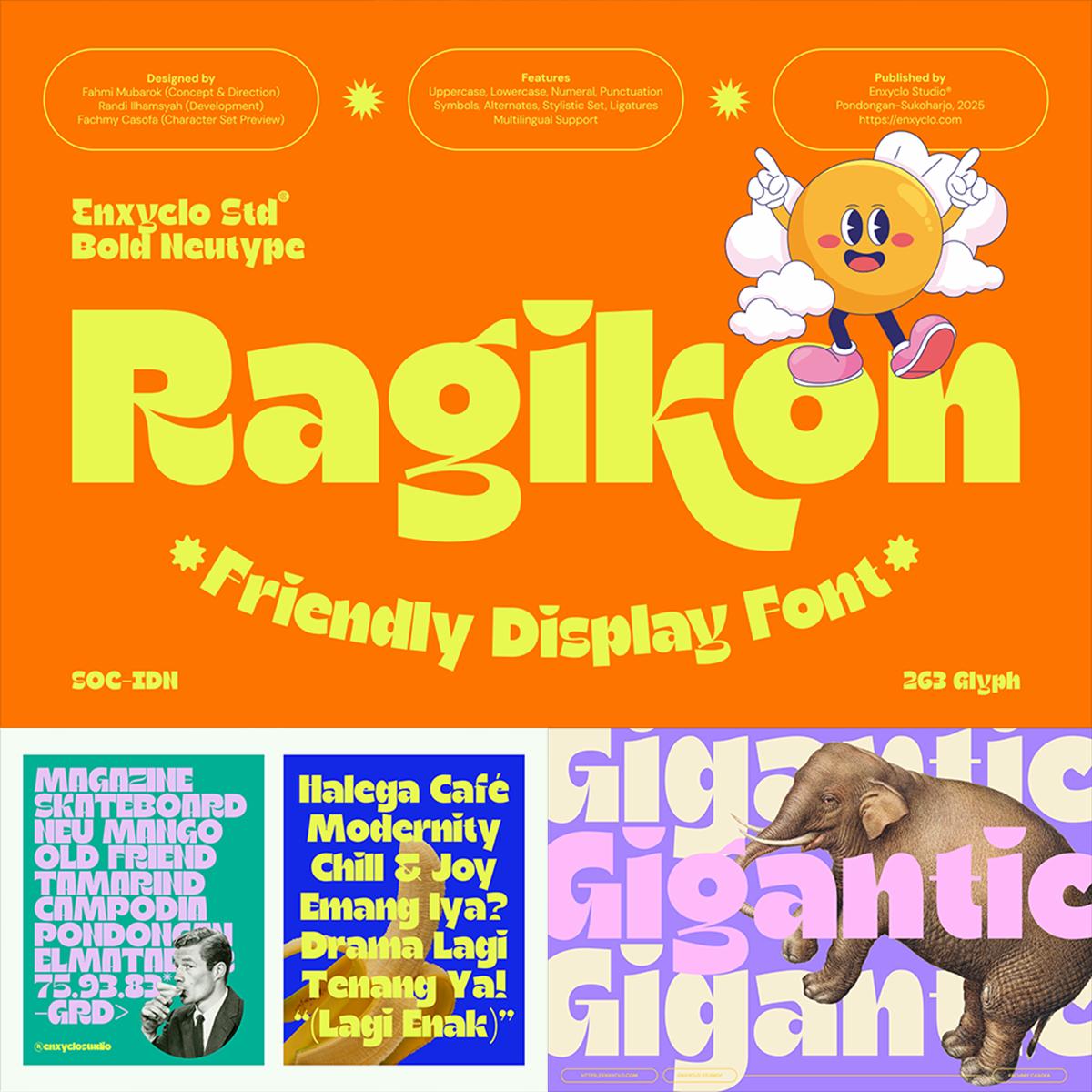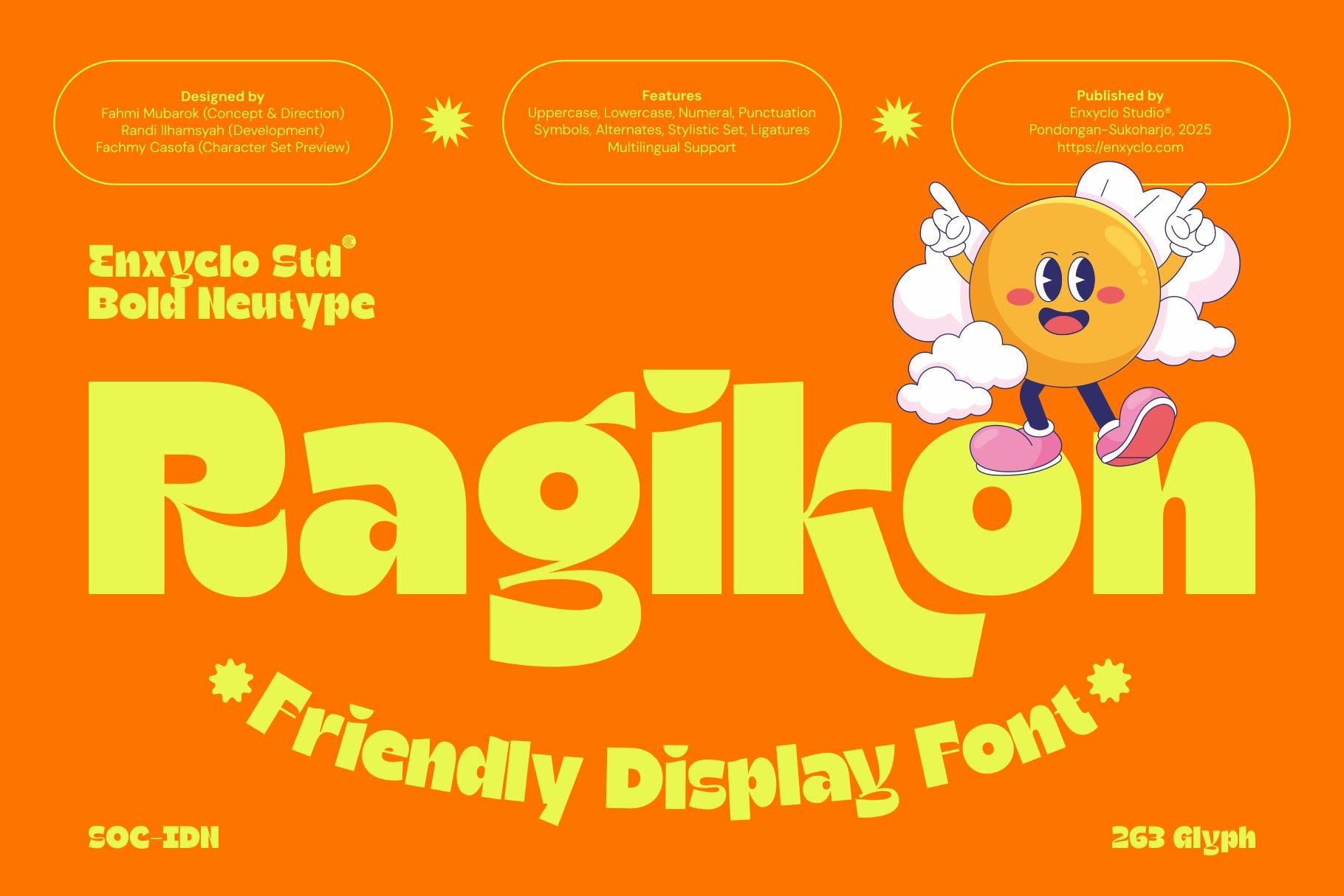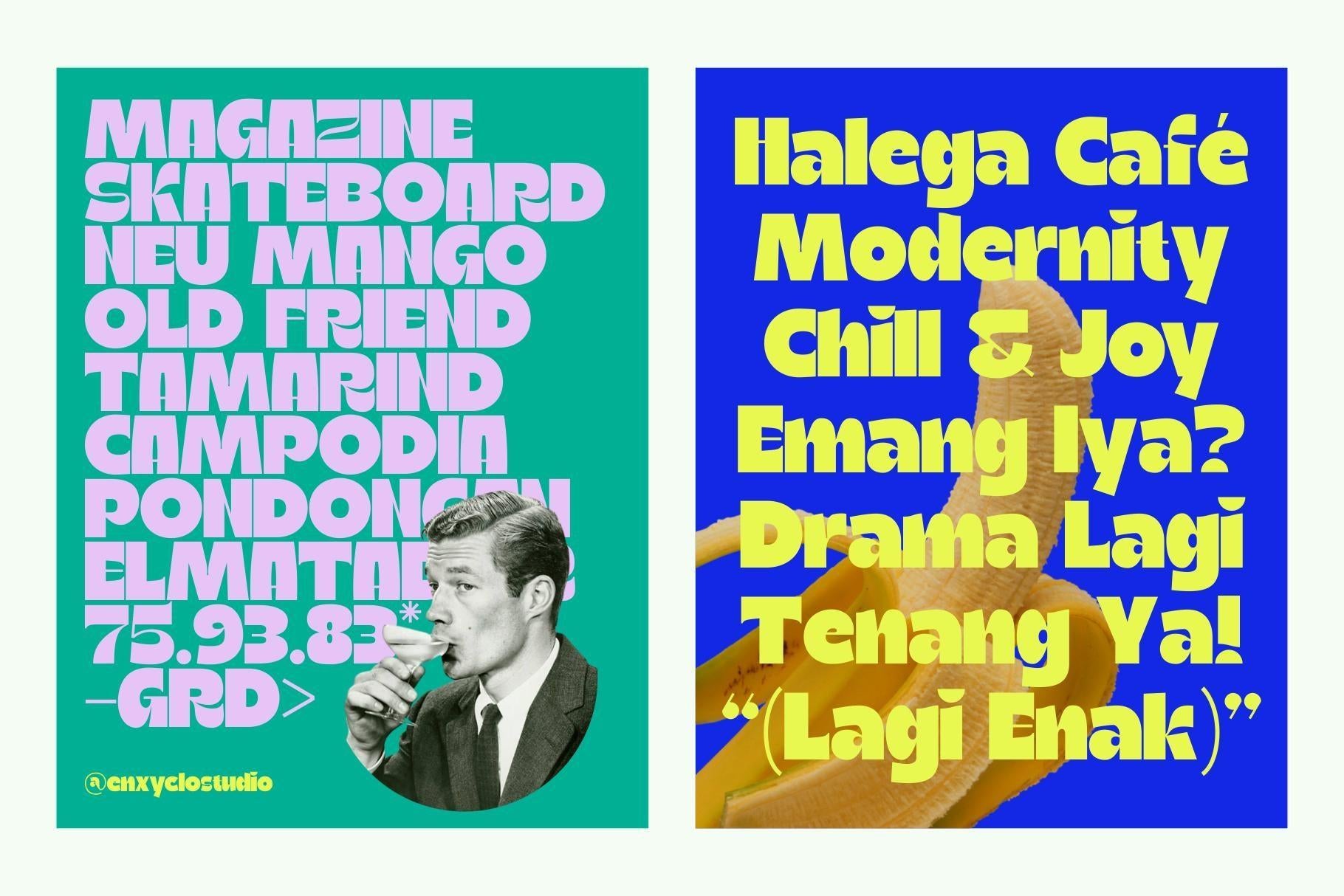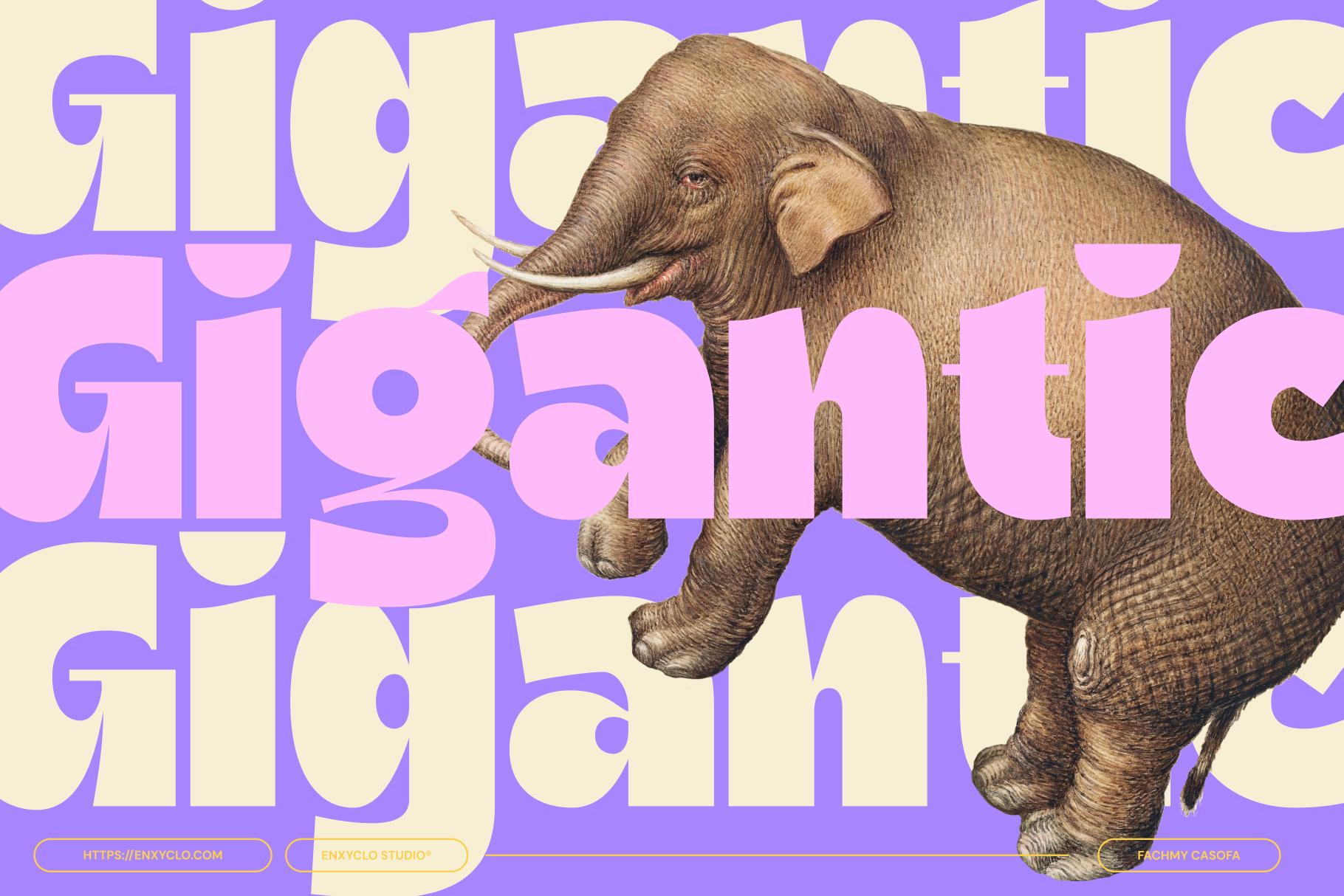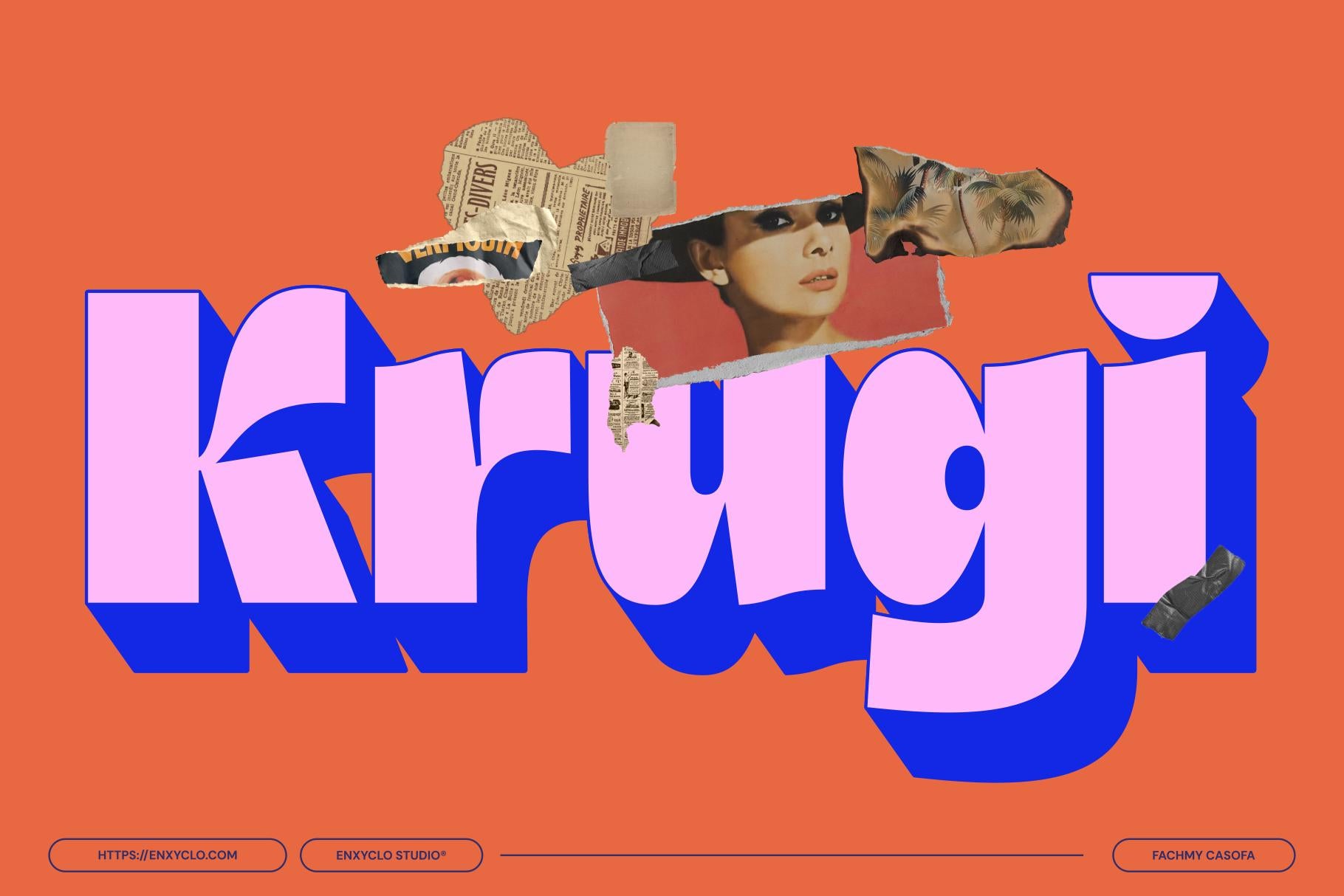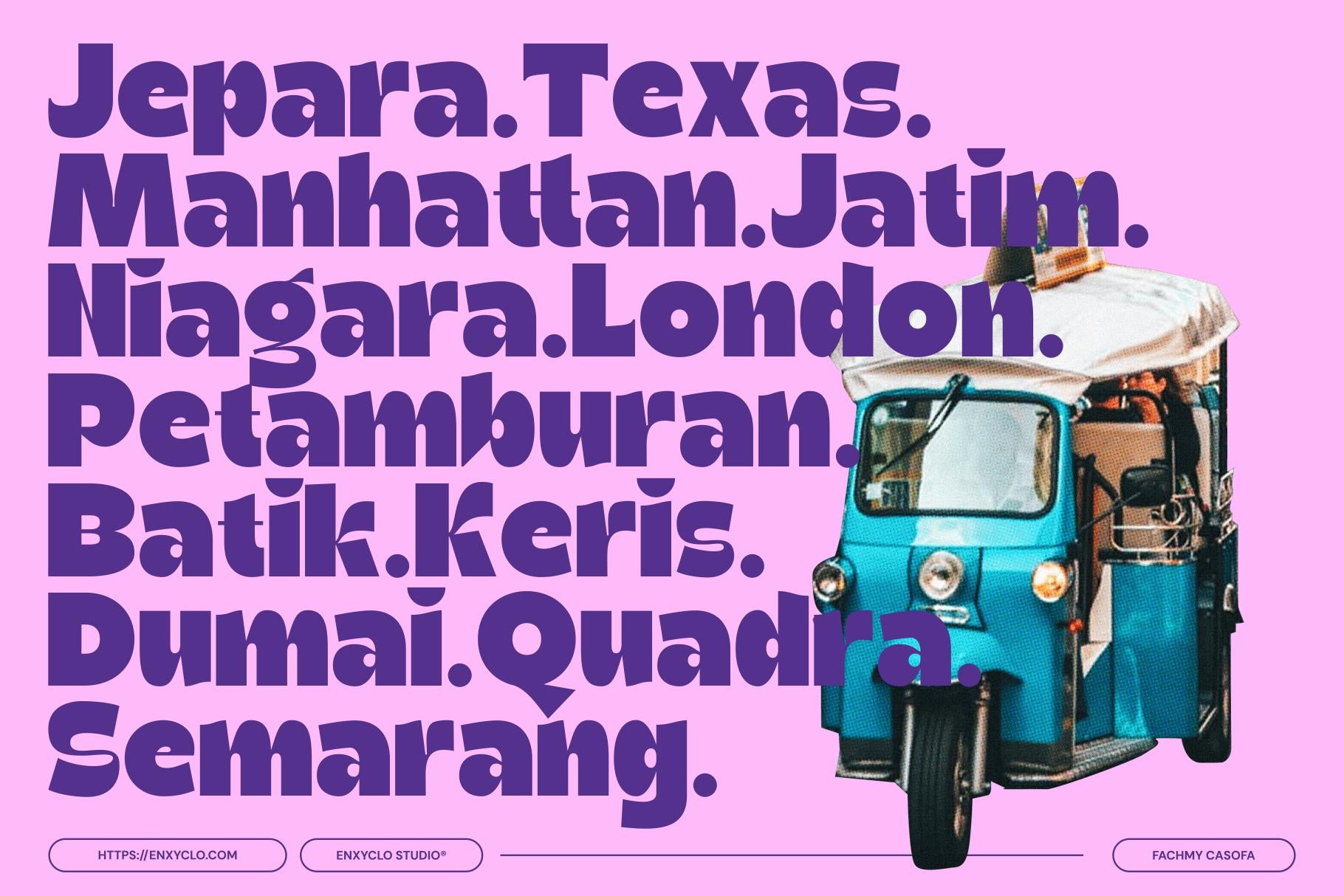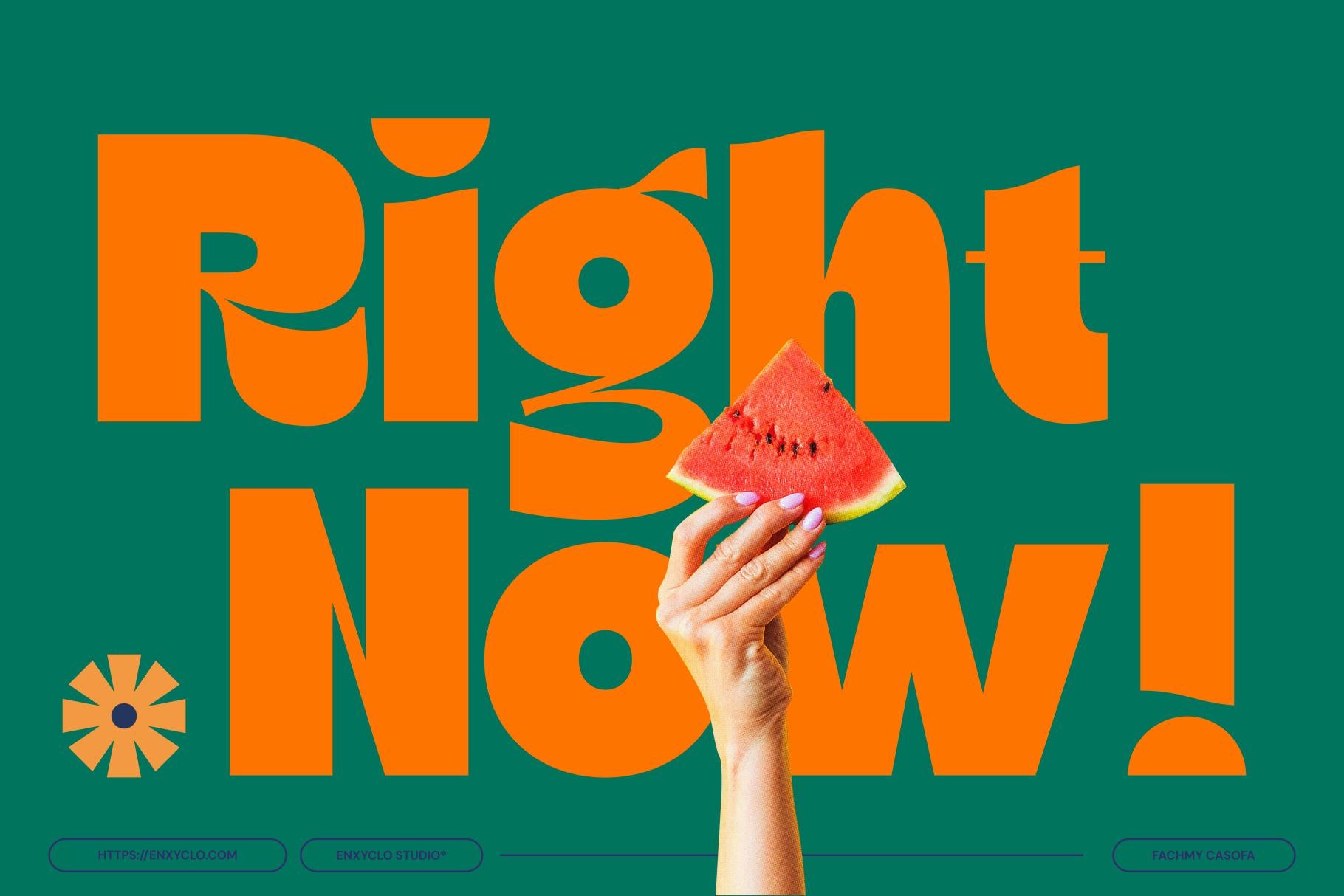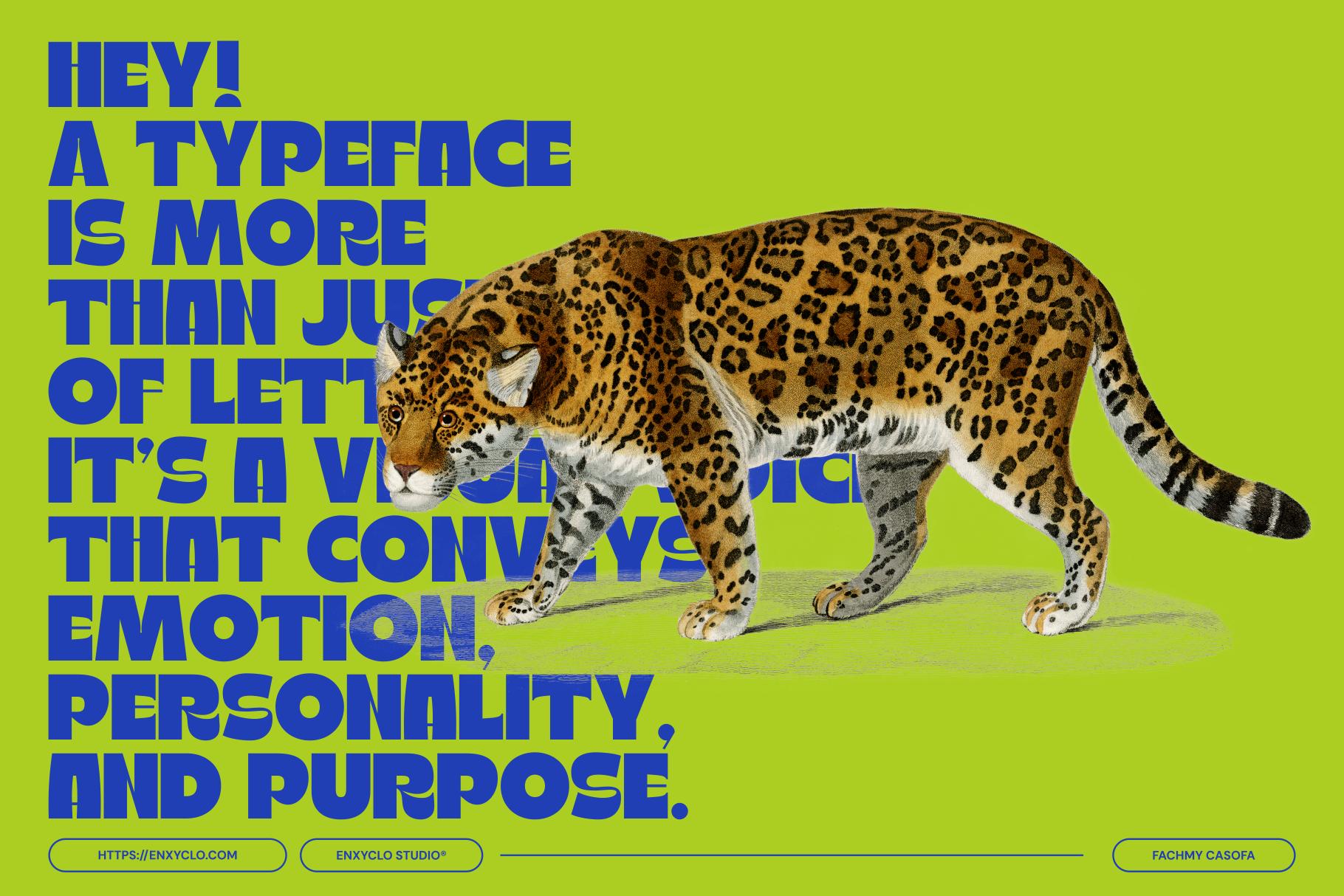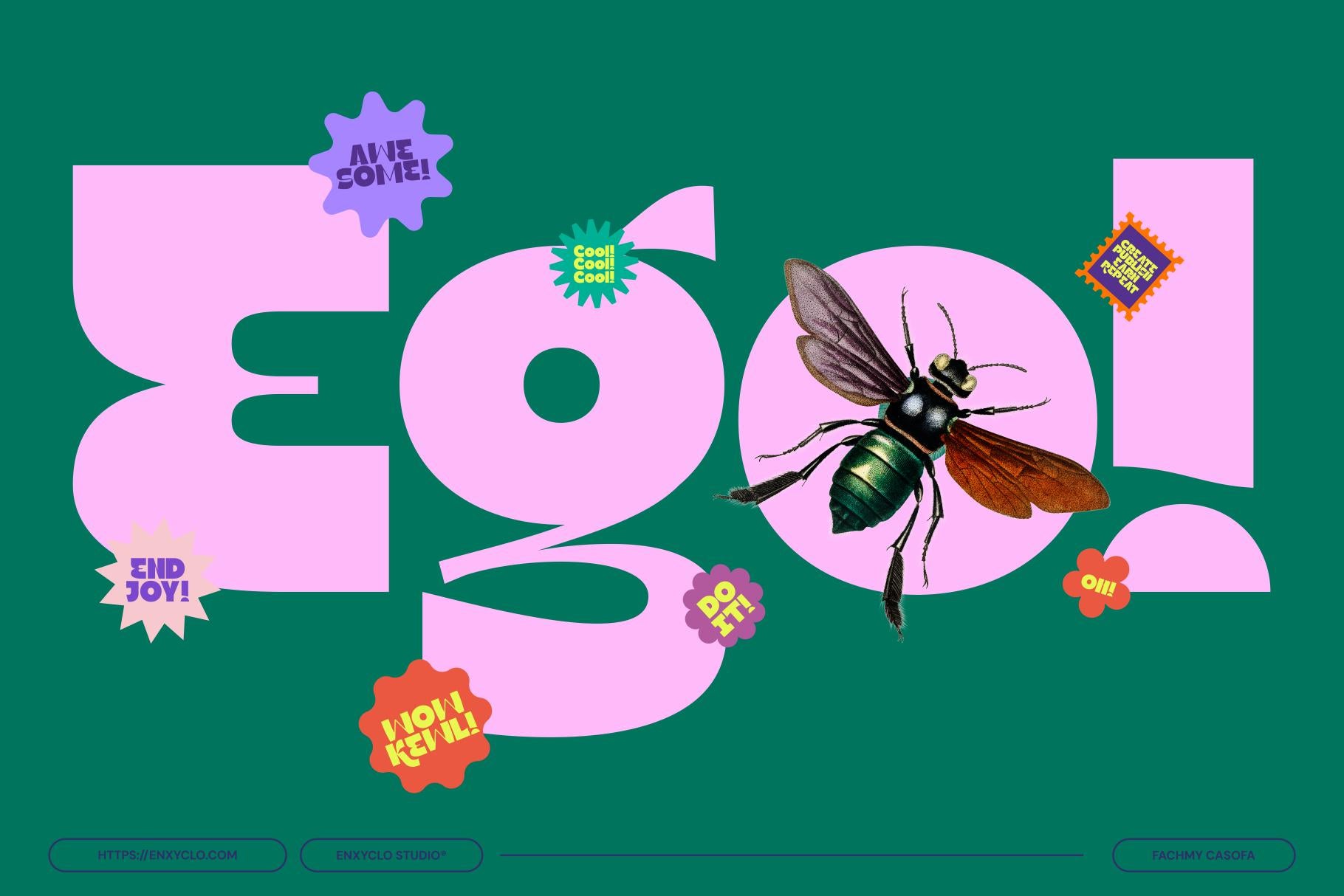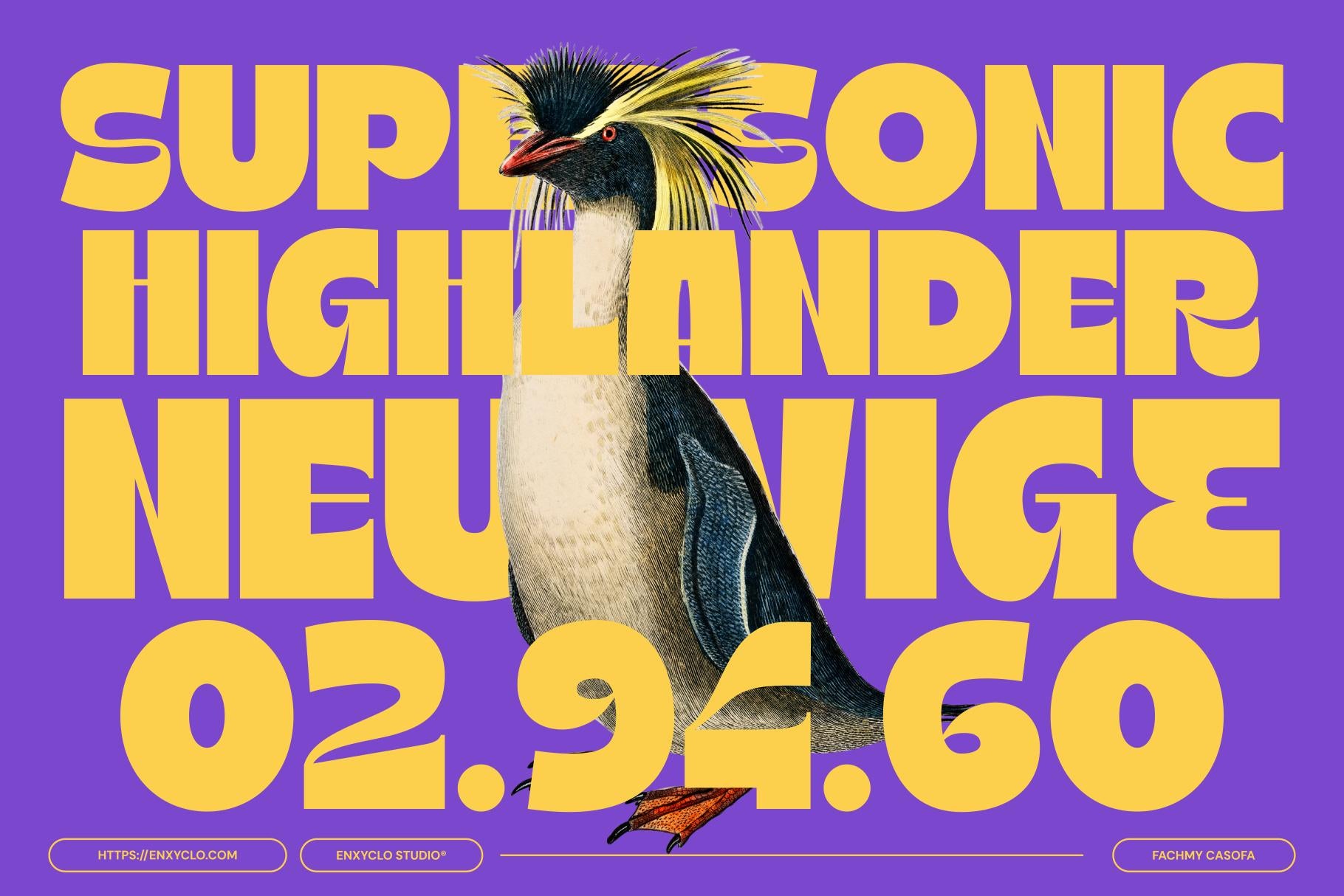
RAGIKON
RAGIKON is a friendly, bold display font featuring playful and chunky letterforms. It includes uppercase, lowercase, numerals, punctuation, stylistic sets, alternates, ligatures, and offers multilingual support with a total of 263 glyphs, making it a versatile choice for various design applications.